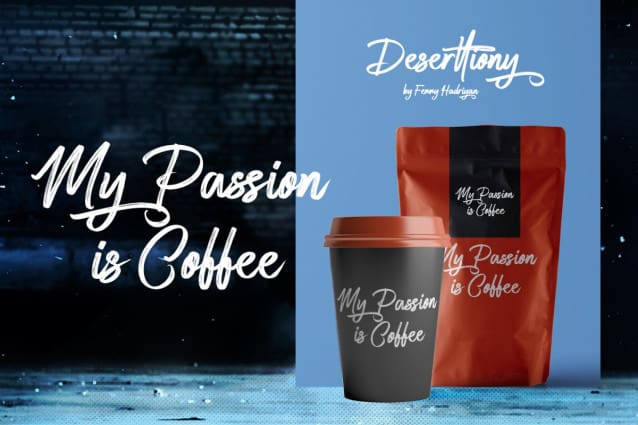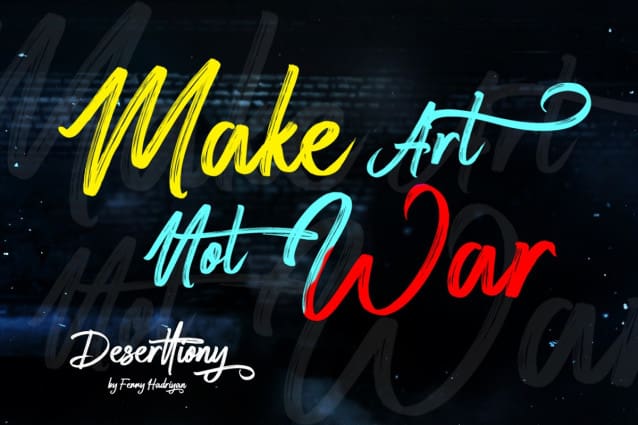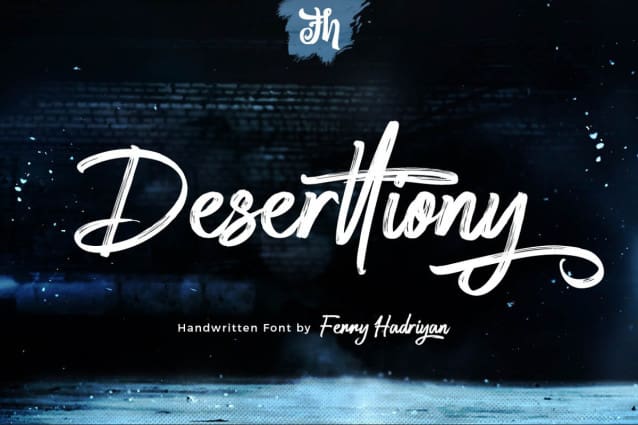
Deserttiony Script Font
Deserttiony Script Font is script font with handlettering brush style, with opentype feature include of the font. Suitable for design, element design, wedding, event, t-shirt, logo, badges, sticker, and awesome work, etc…